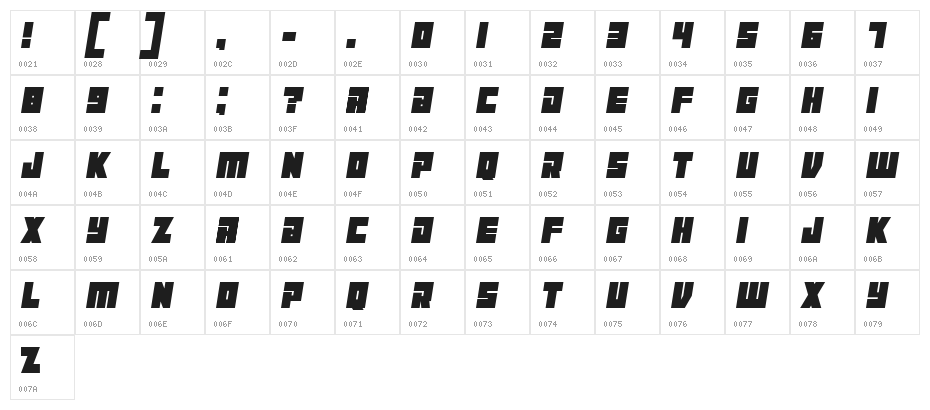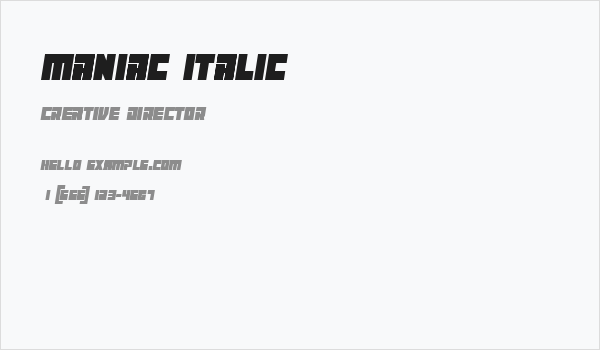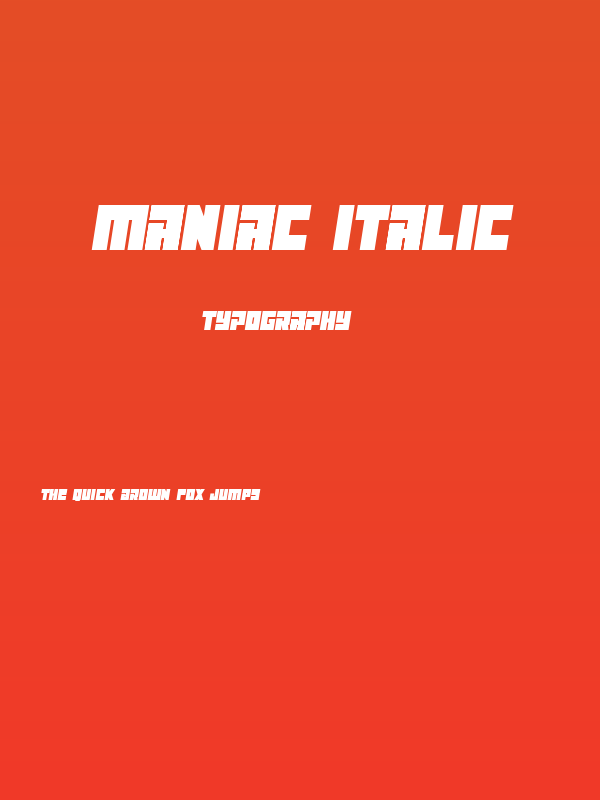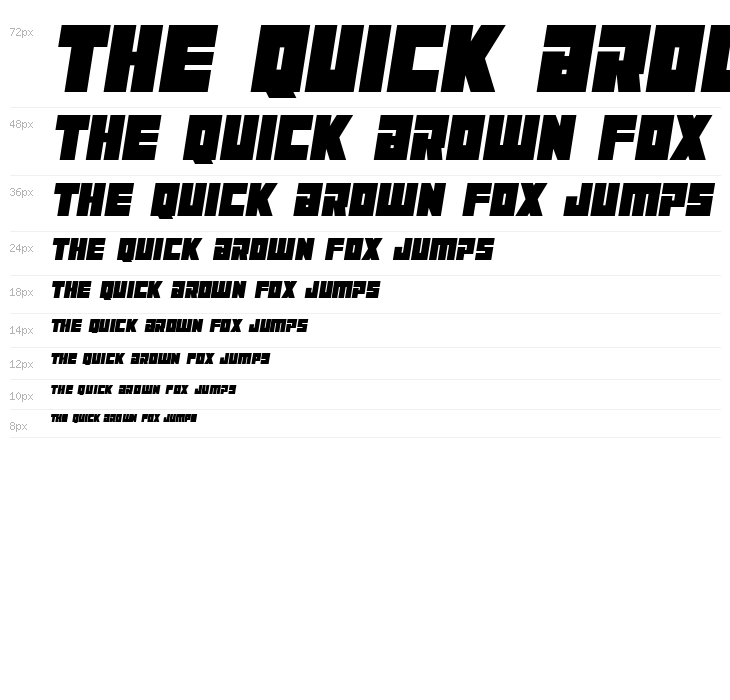
Maniac Italic Font
Maniac Italic Description
This font features a bold, italicized style with a strong geometric influence. The characters are blocky and angular, giving a futuristic and dynamic appearance. The uppercase and lowercase letters maintain a consistent slant, enhancing the italic effect. Numbers and special characters follow the same design principles, ensuring uniformity across all glyphs. The font's thick strokes and sharp edges make it highly visible and impactful, ideal for attention-grabbing designs.
| Proposed Projects | Ideal for video game titles, movie posters, branding for tech companies, and any project requiring a modern, dynamic look. |